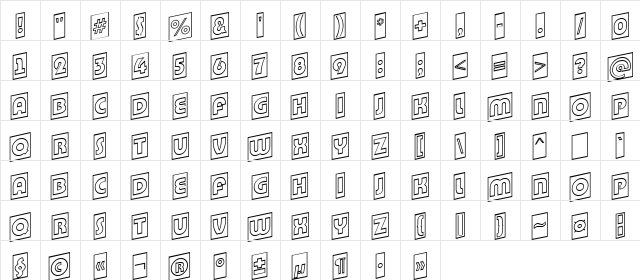
a_BighausTitulCmUpOtl Regular
Design Context for a_BighausTitulCmUpOtl Typeface
a_BighausTitulCmUpOtl is a composed and adaptable typeface that performs quietly and consistently across a wide range of design contexts.